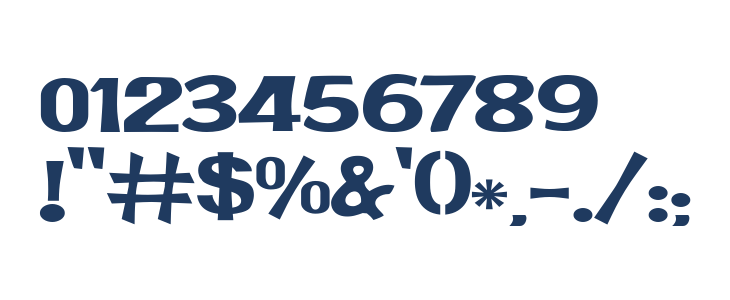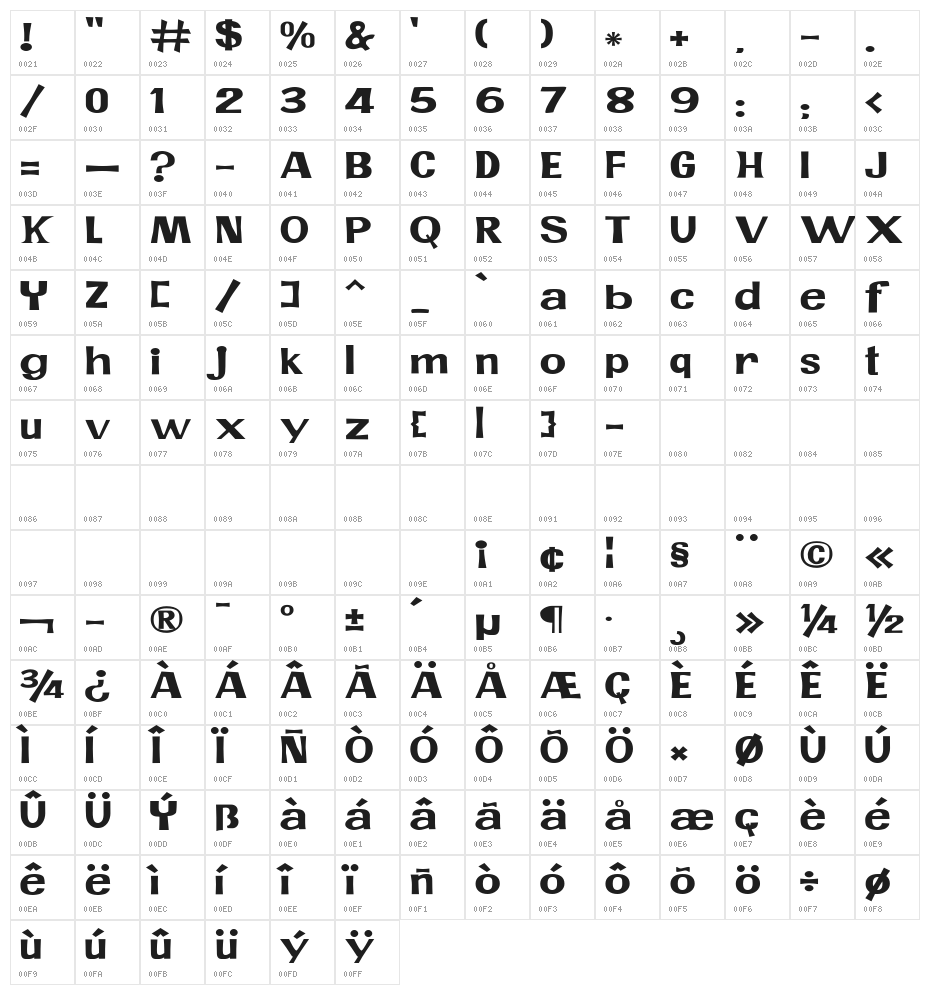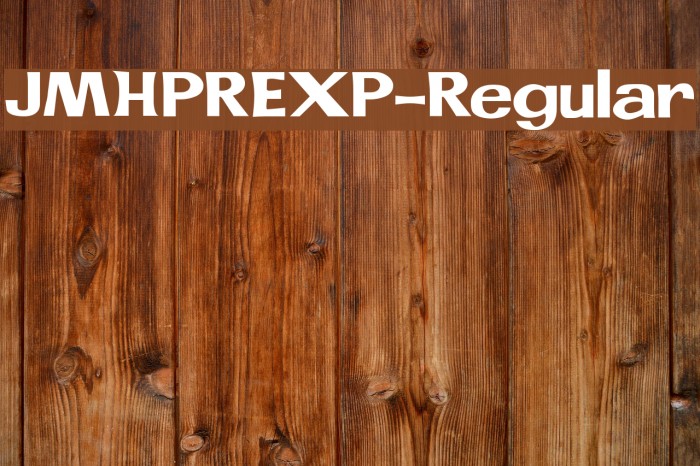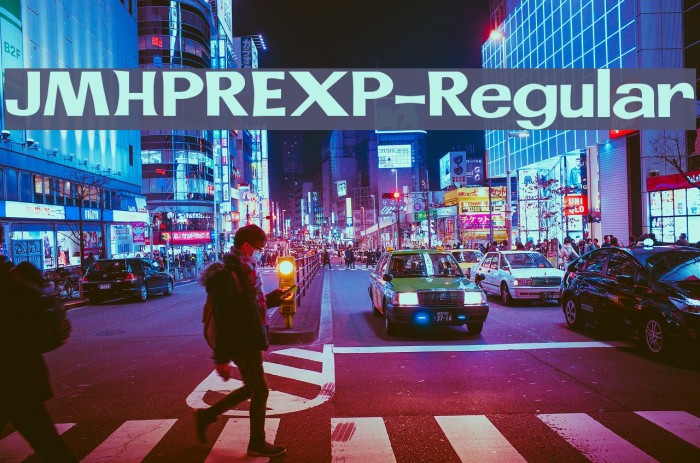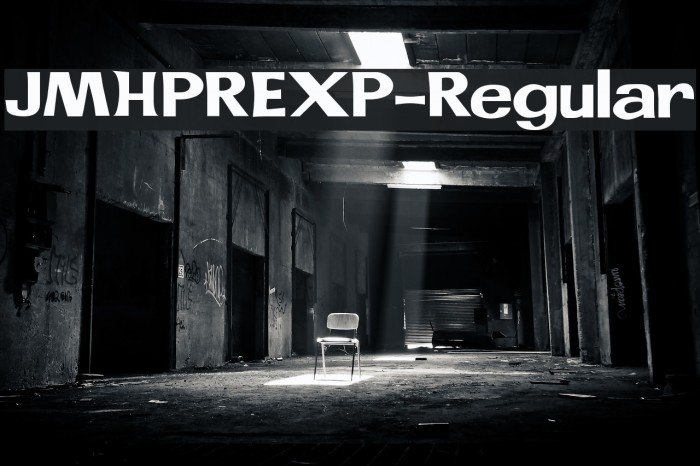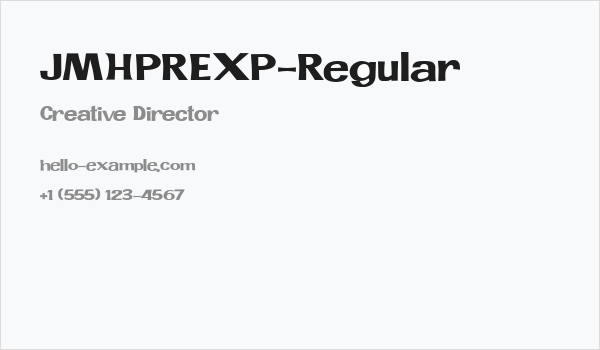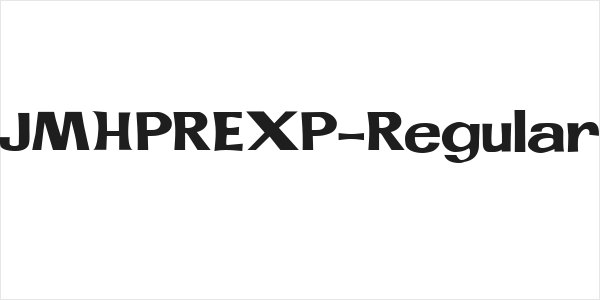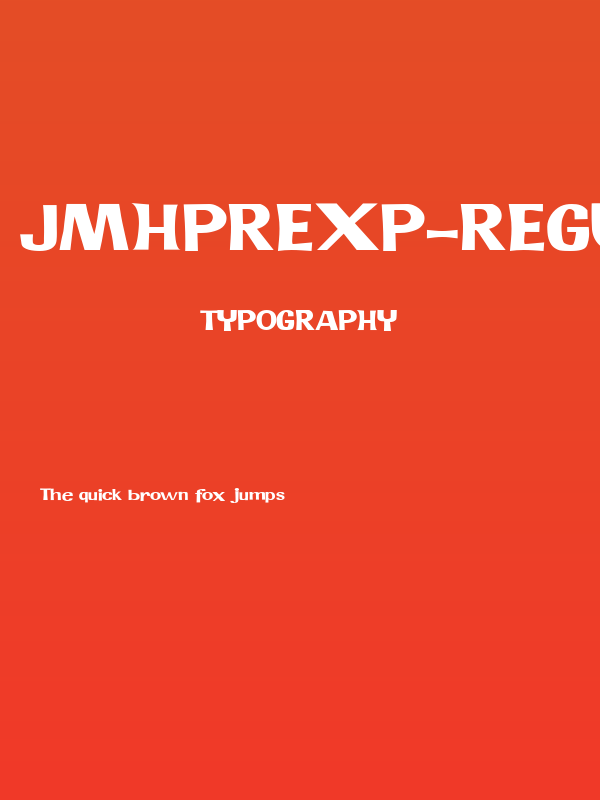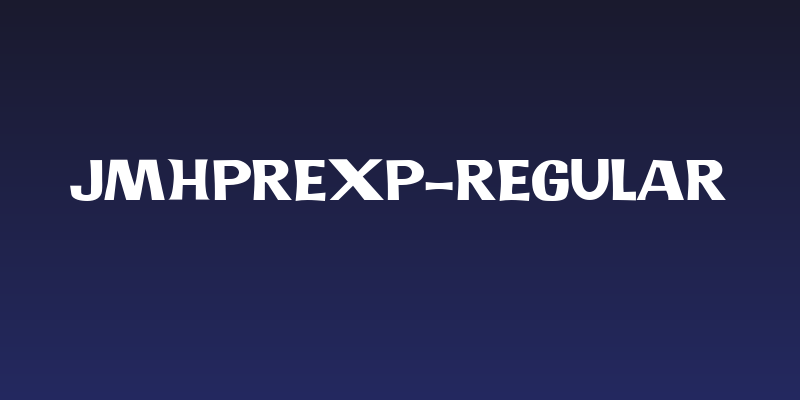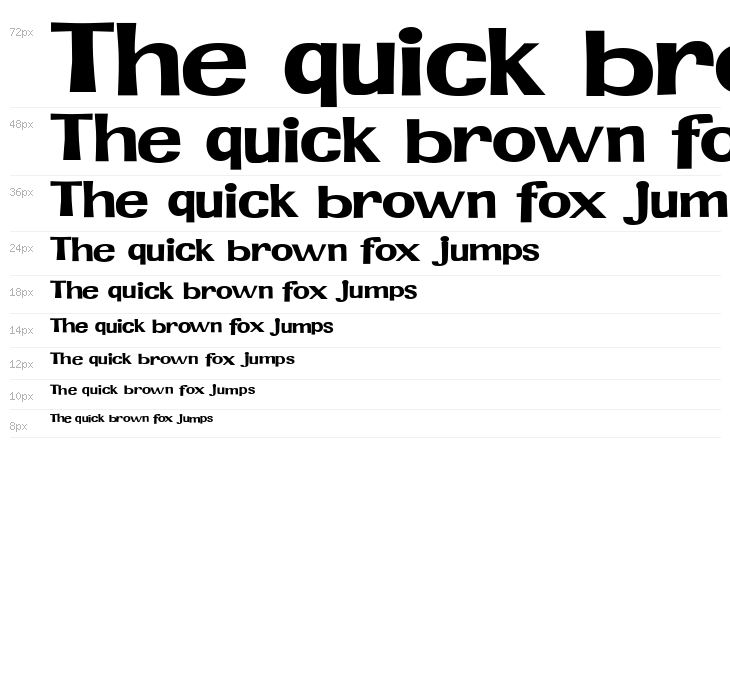
JMHPREXP-Regular Font
JMHPREXP-Regular Description
This font features a bold and dynamic style with a strong presence. The uppercase letters exhibit a unique flair with slightly exaggerated serifs and a sense of movement, creating a visually striking appearance. The lowercase letters maintain a consistent weight, offering a balanced contrast to the uppercase. Numbers are bold and clear, ensuring readability. Special characters are designed with the same boldness, integrating seamlessly with the overall style. This font's boldness and distinctive character make it ideal for attention-grabbing designs.